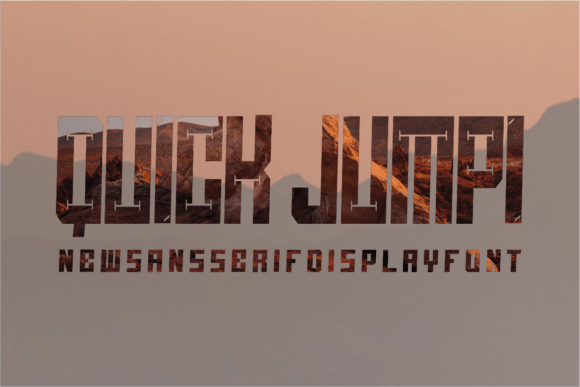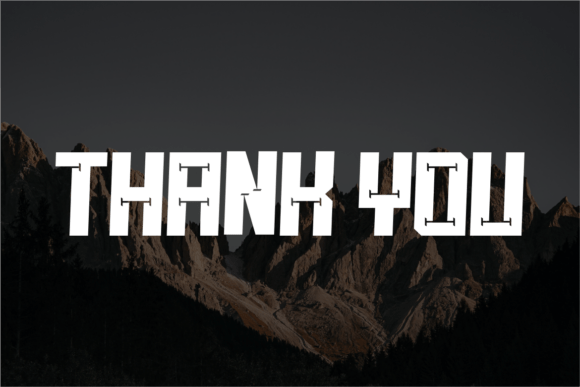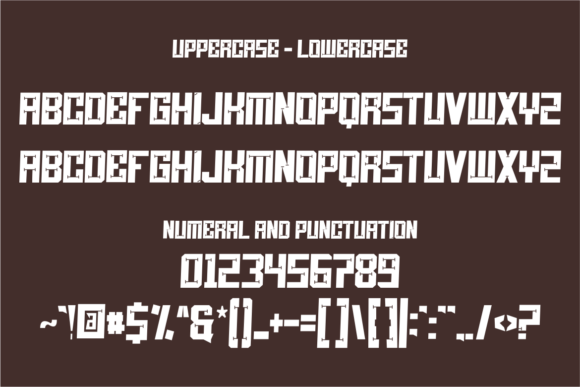
Introduction to Quick Jumpi Font
Quick Jumpi is a bold and futuristic sans serif display font with a mechanical edge and blocky, impactful shapes.
Its angular cuts and extended forms make it perfect for projects that need a powerful, tech-inspired aestheticโgreat for sports branding, video games, posters, or anything with a high-energy vibe It stands out with its commanding presence and striking geometric style.
Key Features of Quick Jumpi Font